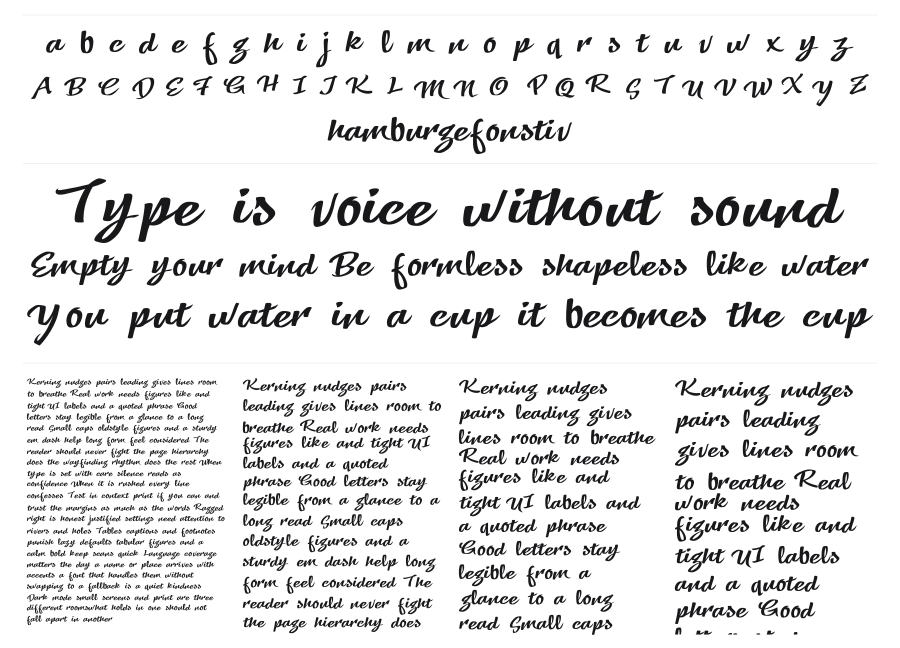
Vtks Colored Soul
Vtks Colored Soul is a thick, expressive brush face from Douglas Vitkauskas with bold strokes that feel fast and physical, like they were laid down in a single confident pass. The letterforms carry a loose, casual energy that stays readable despite their raw edges, making them a strong pick for posters, headlines, and event branding where you want something that feels hand-painted and alive.